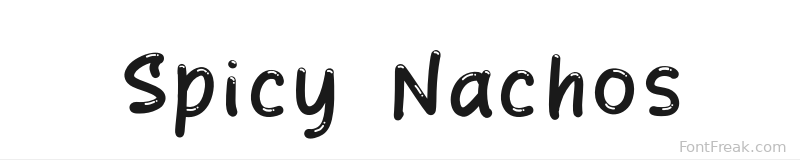
Spicy Nachos
The Spicy Nachos font by Syaf Rizal is a captivating display typeface that embodies a playful and quirky aesthetic, making it an excellent choice for various creative projects. With its bold, hand-drawn appearance, this font features irregular stroke weights that add a sense of fun and spontaneity. The letters exhibit a friendly and inviting quality, characterized by their slightly rounded edges and casual spacing, which enhances readability while maintaining a whimsical charm. This decorative typeface is perfect for projects that aim to evoke warmth and creativity.
The Spicy Nachos font is particularly well-suited for use in restaurant menus, where it can convey a lively atmosphere and a sense of flavor. Additionally, it works wonderfully for food-related branding, such as food trucks or casual eateries, allowing businesses to capture their unique vibe. This font also shines in graphic designs for events like birthday parties or festive gatherings, where its playful nature can elevate invitations and promotional materials. Content creators will find it useful for social media graphics, especially when aiming to attract attention with eye-catching typography.
What truly sets the Spicy Nachos font apart is its ability to bring a sense of joy and personality to any design. Its unique blend of fun and approachability makes it not just a typeface, but an essential tool for anyone looking to add a little spice to their creative endeavors. Embrace the charm of Spicy Nachos and let your projects flourish with its delightful energy.